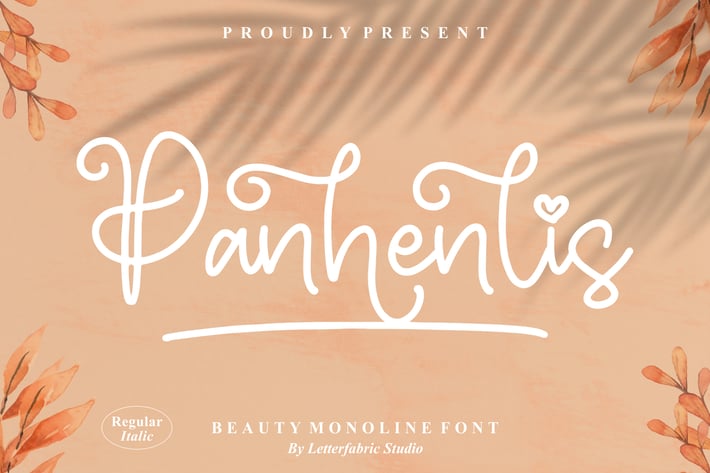
Panhenlis Beauty Monoline Font
Panhenlis Beauty Monoline is a graceful and charming handwritten font featuring smooth monoline strokes and playful curves. Its natural flow and subtle heart details bring a warm, romantic, and modern touch to every design. Perfect for creative projects that need elegance, personality, and a touch of whimsy.
Elegant monoline handwritten style
Flowing, rounded letterforms with soft curves
Includes Regular and Italic styles
Wedding invitations and greeting cards
Beauty and lifestyle branding
Social media quotes and posts
Product packaging and boutique labels
Personal projects and creative lettering
Sweet, elegant, and effortlessly romantic — Panhenlis Beauty Monoline adds a heartfelt handwritten charm to any design.